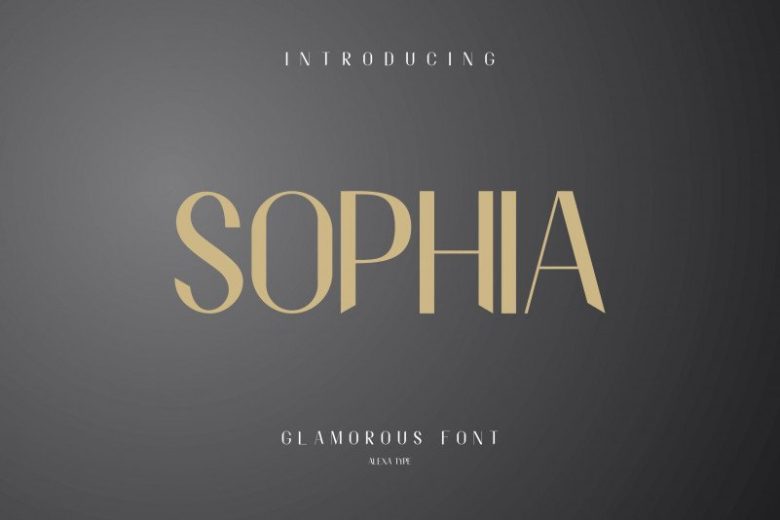
Shopia Sans Font
Introducing Sophia Font, a modern and elegant sans serif.
Sophia is easy to use, bringing a bit of personality while keeping the look minimalistic and modern.
Sophia works beautifully for logos, branding, and headlines – I hope you love using it as much as I loved designing it!